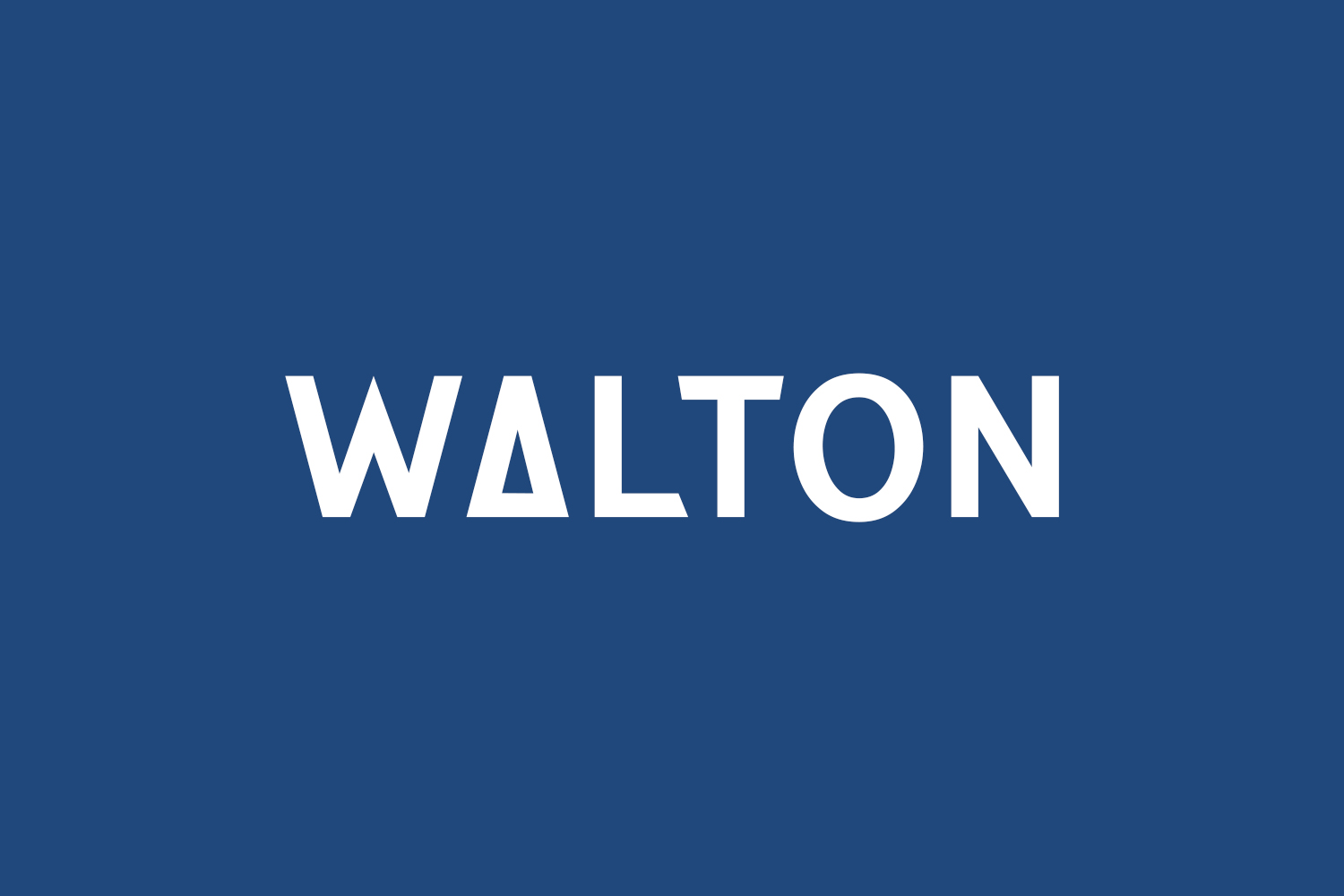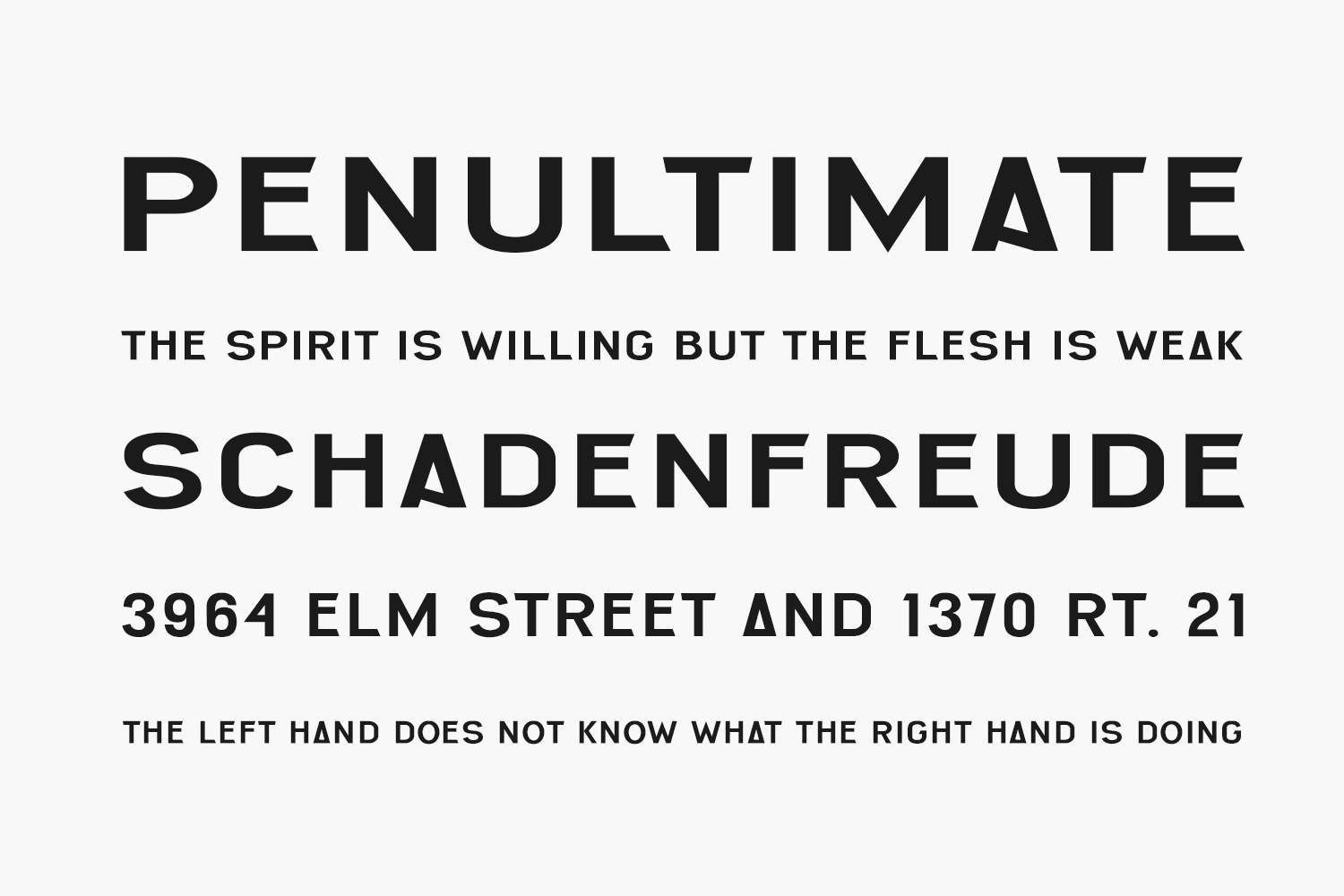
Introducing Walton Free Font, a strong, robust, and clean sans-serif typeface. Regardless of your project’s theme, this font is a valuable addition to your font collection, offering the potential to enhance any creative endeavor. Walton Free Font is free for personal use only. Please purchase the full version for commercial use.
Designed by Fontherapy